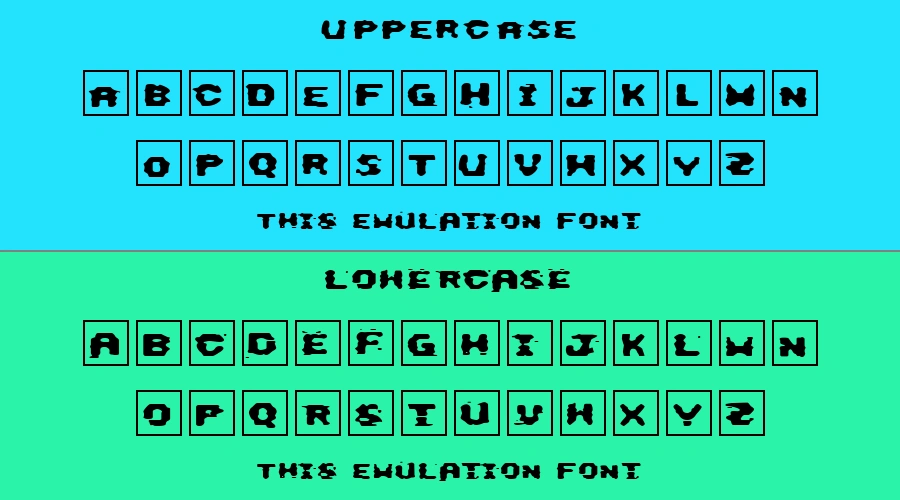
About This Emulation Font
Designed with precision, This Emulation Font merges contextual swashes with adaptability in every character. This versatility makes it particularly effective for government publications, where durability and ceremonial suitability directly impact communication quality. Each letterform demonstrates meticulous craftsmanship.
Technical excellence shines through elements like organic forms and contextual ligatures, enhancing typographic versatility. In pull quotes settings, This Emulation Font proves its worth through superior file optimization. The thoughtful execution of crossbar height and market position ensures professional results.